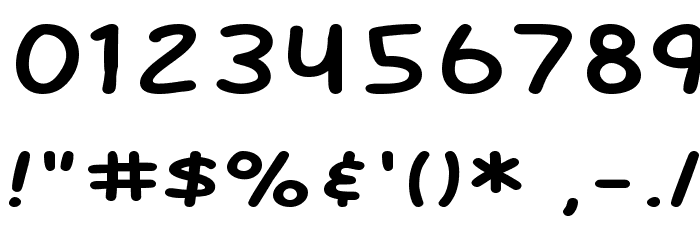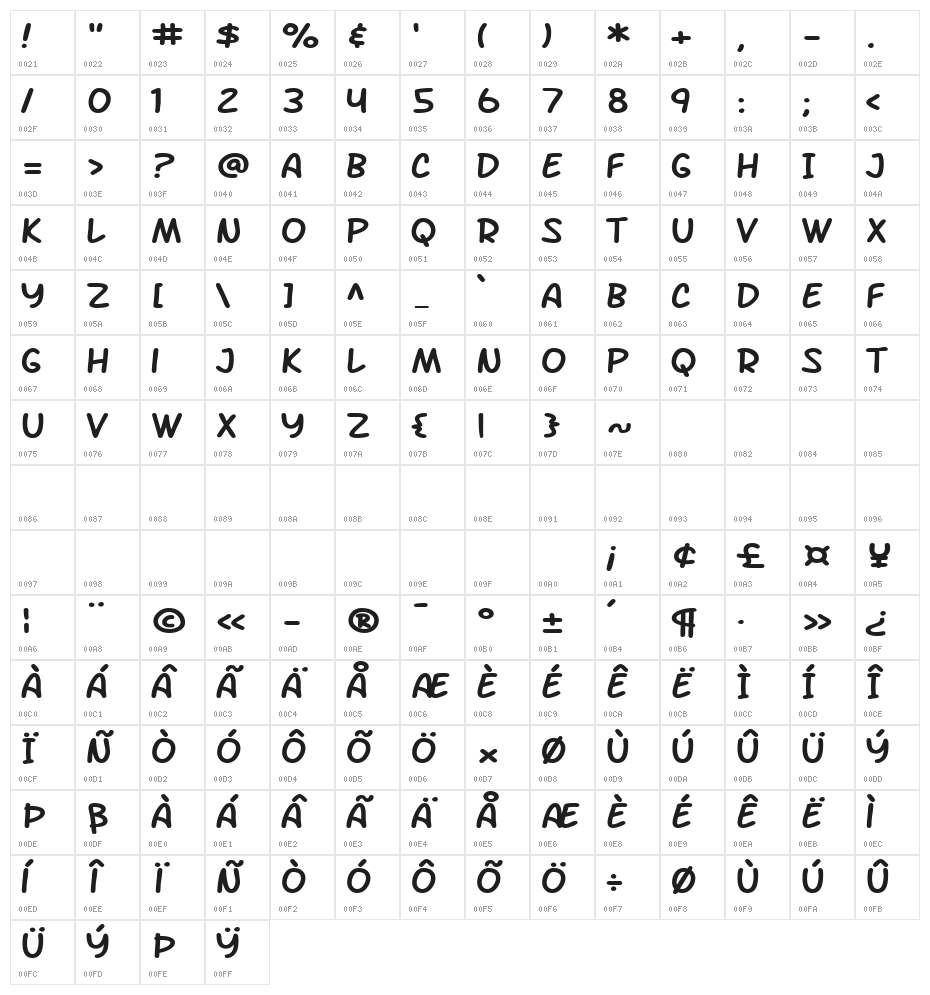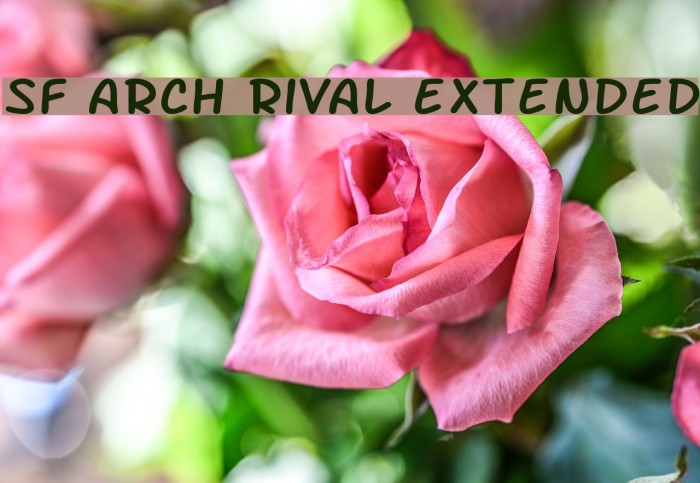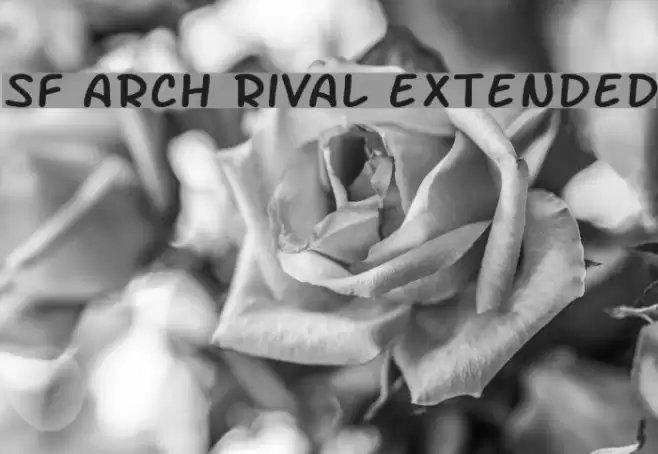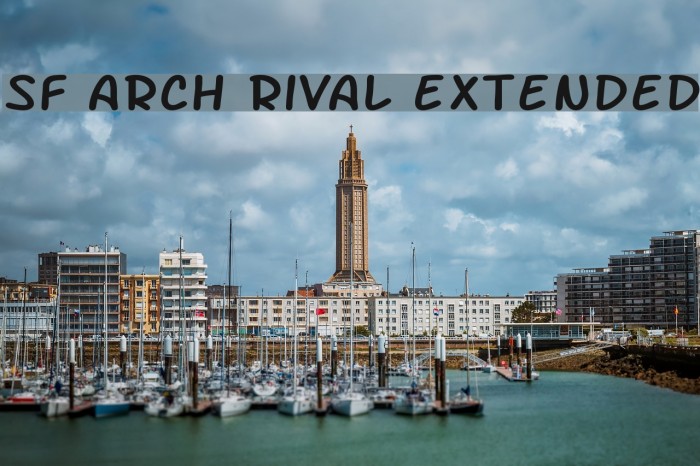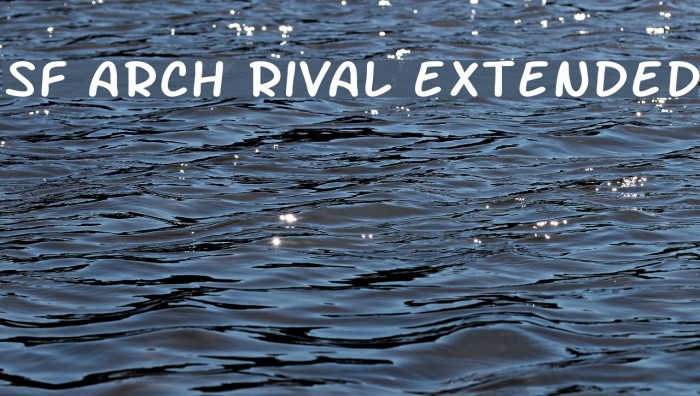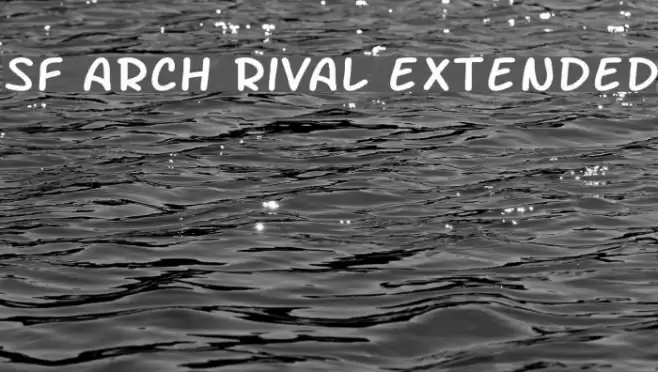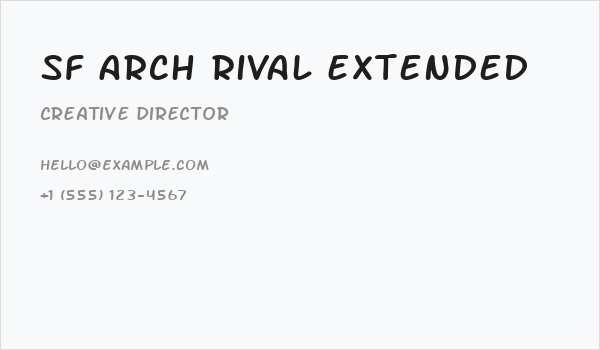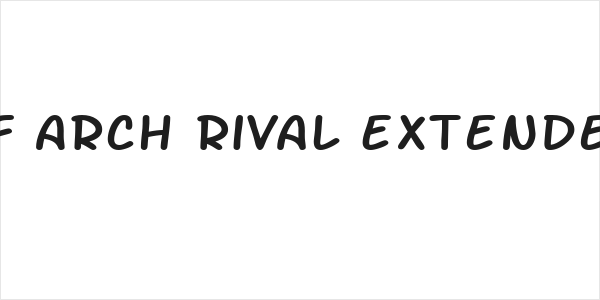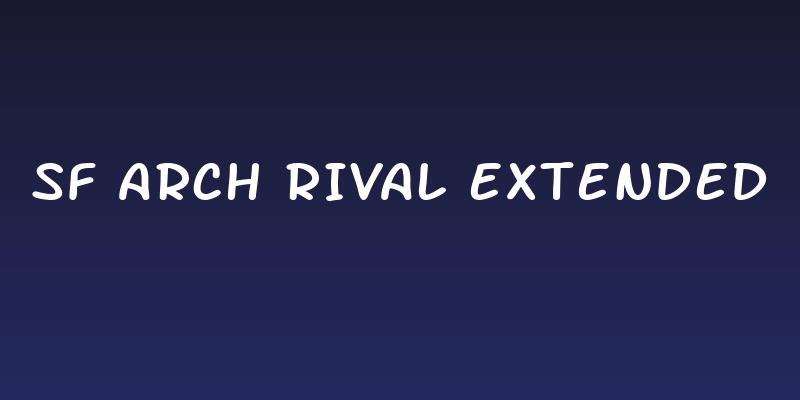
SF Arch Rival Extended Font
SF Arch Rival Extended Description
This font features a playful and informal style, characterized by its rounded and slightly irregular letterforms. The strokes are consistent in width, giving it a uniform appearance while maintaining a hand-drawn feel. The uppercase and lowercase letters are well-balanced, with a slight slant that adds to its casual aesthetic. The numerals and special characters follow the same design principles, ensuring cohesiveness across all glyphs. This font is versatile and can be used to convey a friendly and approachable tone.
| Proposed Projects | Ideal for children's books, casual branding, greeting cards, and playful posters. |